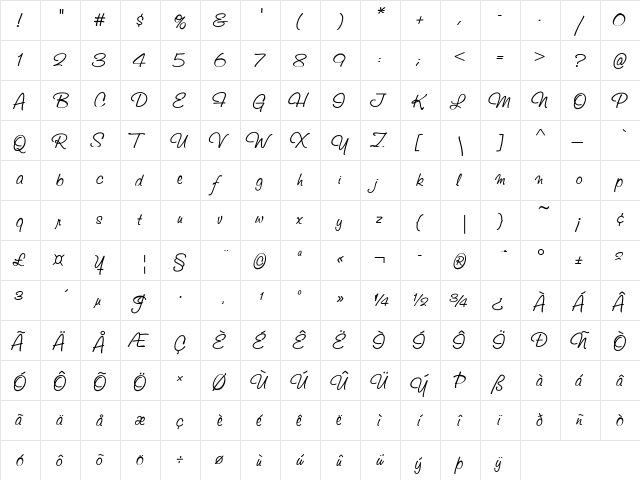
Studio Script Itc D Regular
Design Context for Studio Script Itc D Typeface
Studio Script Itc D flows with the natural rhythm of handwritten lettering, making it ideal for designs that call for warmth and personal expression.
Font Pairing: Combine Studio Script Itc D with a simple geometric sans for maximum contrast — the tension between flowing curves and clean structure is a classic typographic pairing.
Pro Tip: Pair Studio Script Itc D with a clean sans-serif for supporting text. The contrast between fluid script and geometric structure creates an elegant typographic hierarchy.